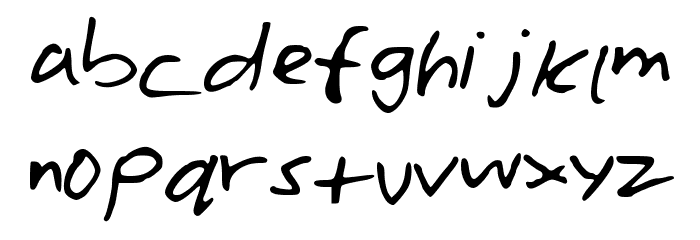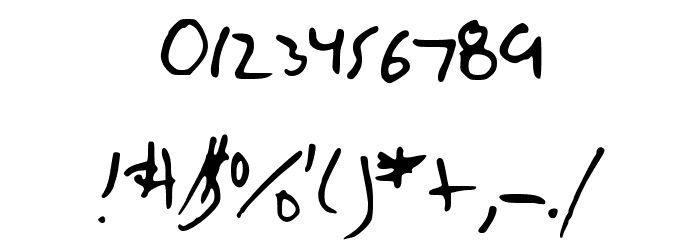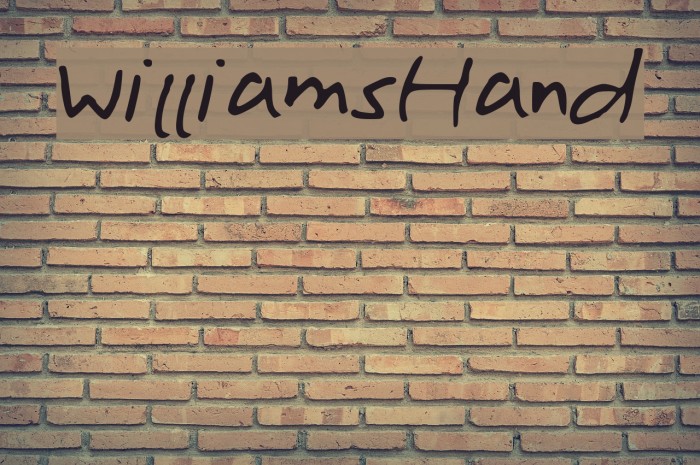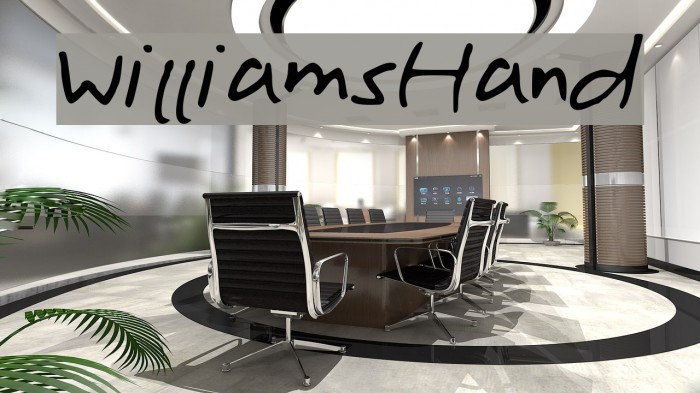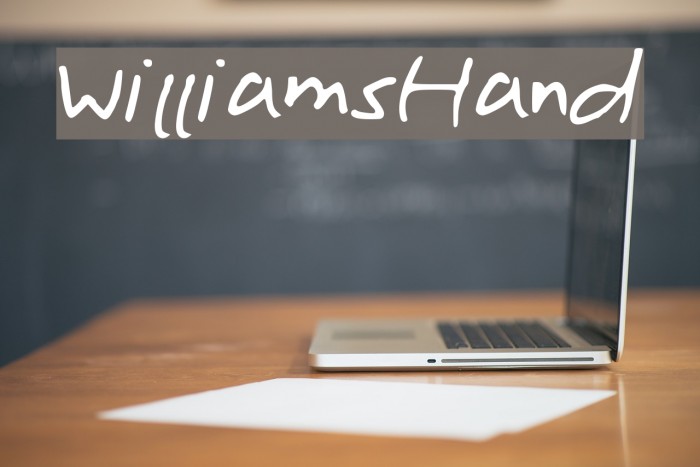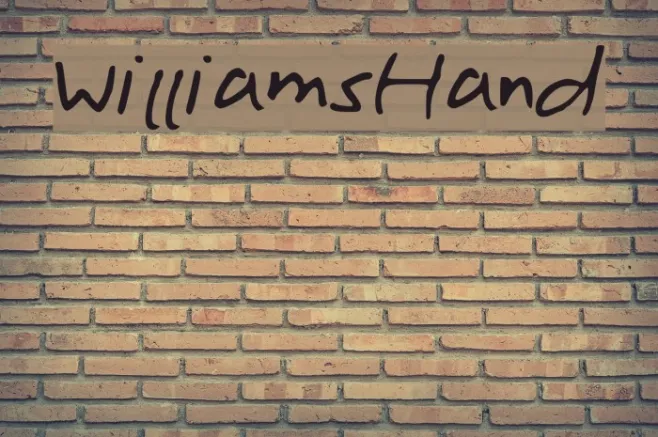
WilliamsHand Font
This font exudes a casual, handwritten style with a playful and informal appearance. The characters are unevenly spaced, giving it an authentic, personal touch. The strokes vary in thickness, adding to its dynamic and lively feel. The uppercase letters are bold and slightly slanted, while the lowercase letters maintain a consistent flow, enhancing readability. Numbers and special characters are crafted with the same whimsical flair, making them stand out. This font is perfect for projects that require a personal or creative touch, such as greeting cards, invitations, or artistic posters.
A playful, handwritten font with a casual and dynamic style.
- Proposed Projects: Ideal for greeting cards, invitations, artistic posters, and personal branding.
- Character Spacing: Wide
- Overall Style: Casual
- Use Case: Logos, Headlines, Artistic projects